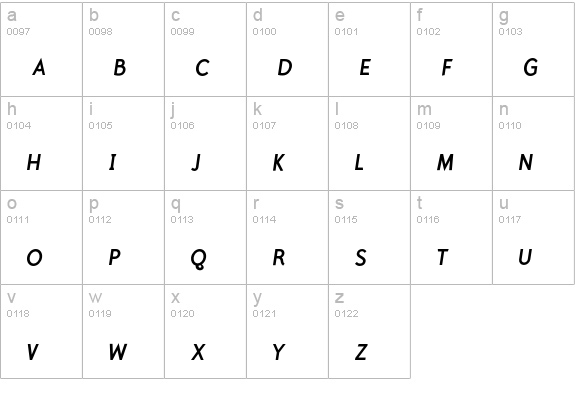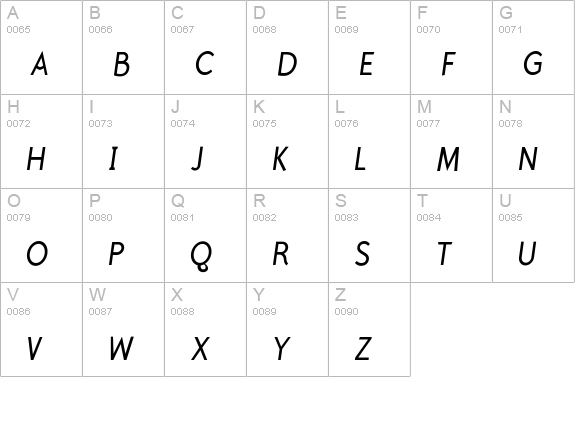
PolymerBookCapsItalic Font Details
PolymerBookCapsItalic font is a beautifully crafted typeface that combines classic elegance with a modern touch. Its distinctive italic style and unique bookcaps design make it perfect for adding a sophisticated flair to your projects. The sleek and polished appearance of PolymerBookCapsItalic font exudes professionalism and sophistication, making it ideal for a wide range of design applications. The best part about PolymerBookCapsItalic font is that it is available for free download at FontsMarket.com. This means you can easily access this stylish and versatile font to enhance your designs without any cost. Whether you're working on branding materials, invitations, posters, or any other creative project, PolymerBookCapsItalic font is sure to elevate your typography game. Download it today and experience the elegance and versatility of this exceptional typeface.